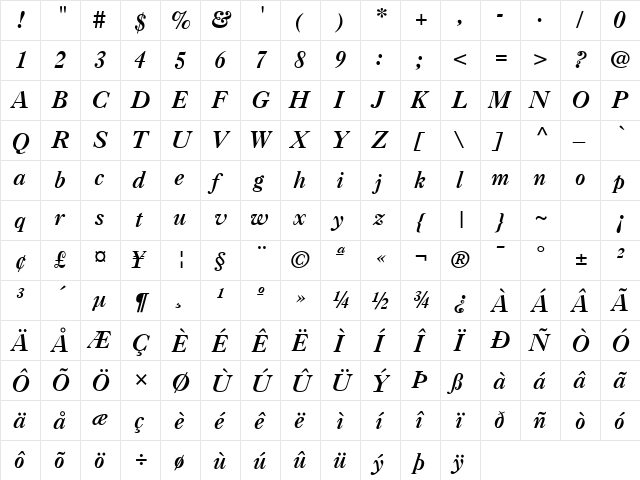
Caslon 3 ITALIC
Design Context for Caslon 3 Typeface
Caslon 3 is a composed and adaptable typeface that performs quietly and consistently across a wide range of design contexts. The dynamic lean of this cut emphasises speed and emphasis in any layout.
Pro Tip: Try Caslon 3 for annotation and caption copy alongside an upright companion — the contrast in angle creates a dynamic but ordered typographic system.